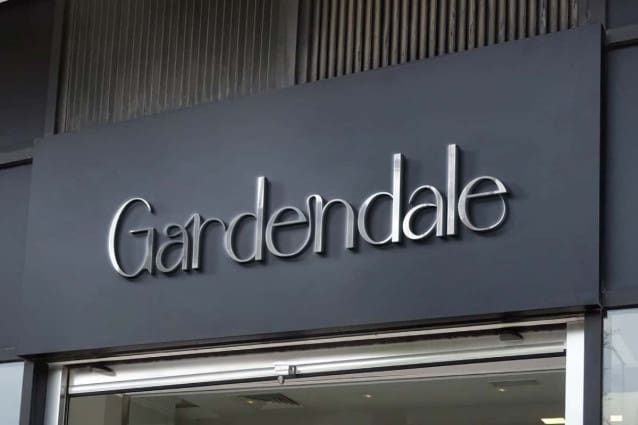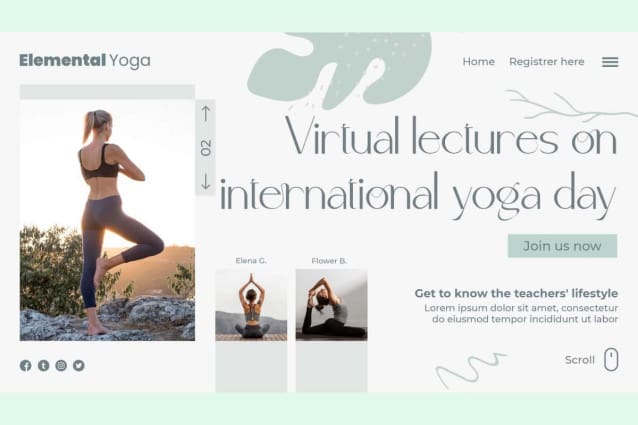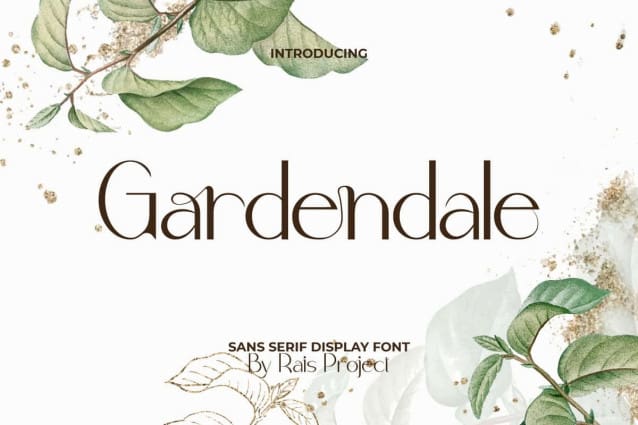
Gardendale Font
Gardendale Font is a modern stylish sans serif display font. A stunning modern sophisticated sans serif display font with beautiful looks. This font will make your designs look elegant, feminine, modern, and timeless at the same time. It will work good in many designs, such as brand image, custom design, invitation, label, menu, poster, product packaging, quote, signage, stationery, web, and more!
Gardendale Font includes a full set of Uppercase and Lowercase Letters, Numerals, large range of Punctuation, and Ligature. This stunning font will be suitable for various industries, such as advertisement, beauty product, cafe, event or wedding organizer, fashion, florist, photography, printing, publishing, real estate, restaurant, spa and salon, etc.